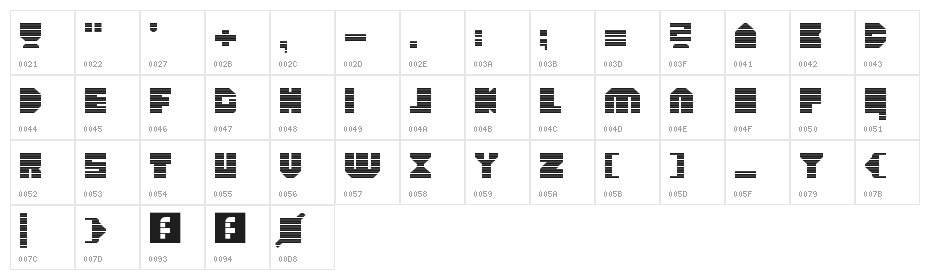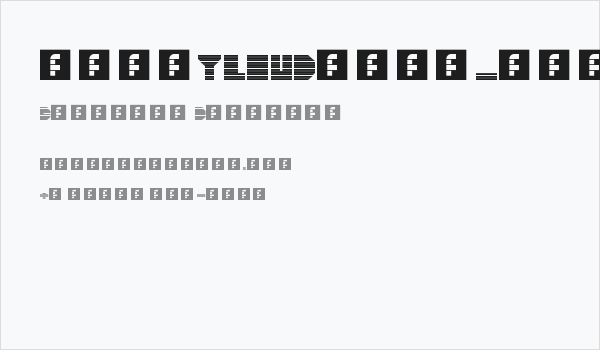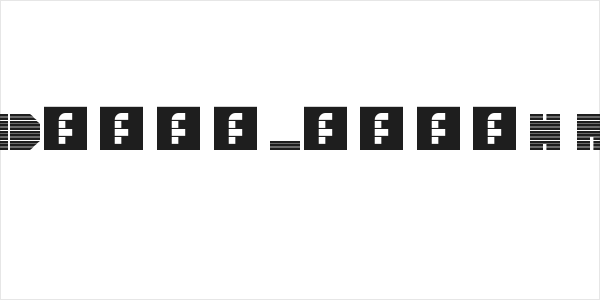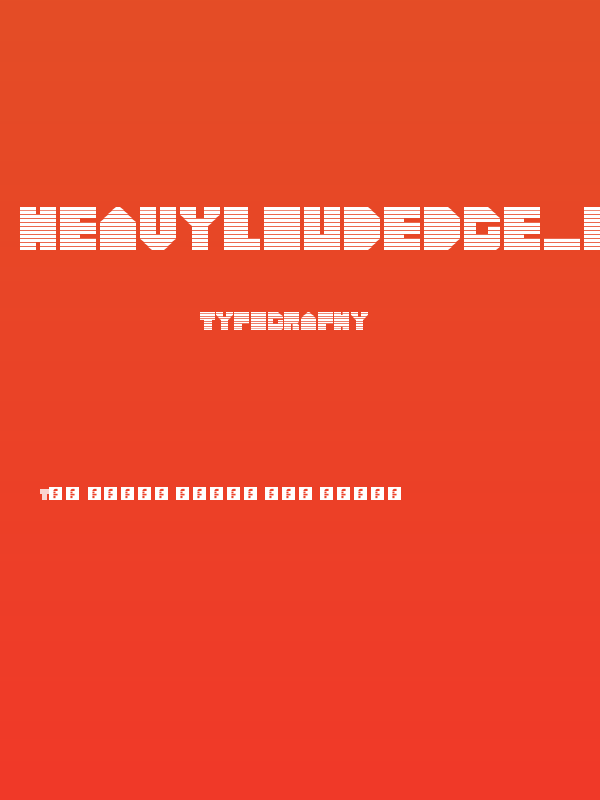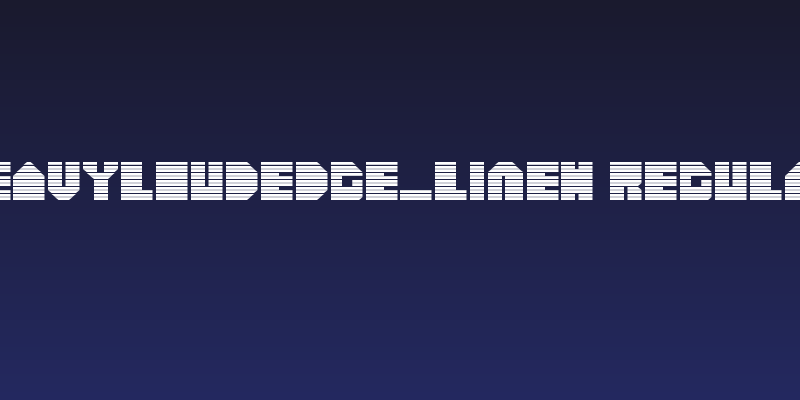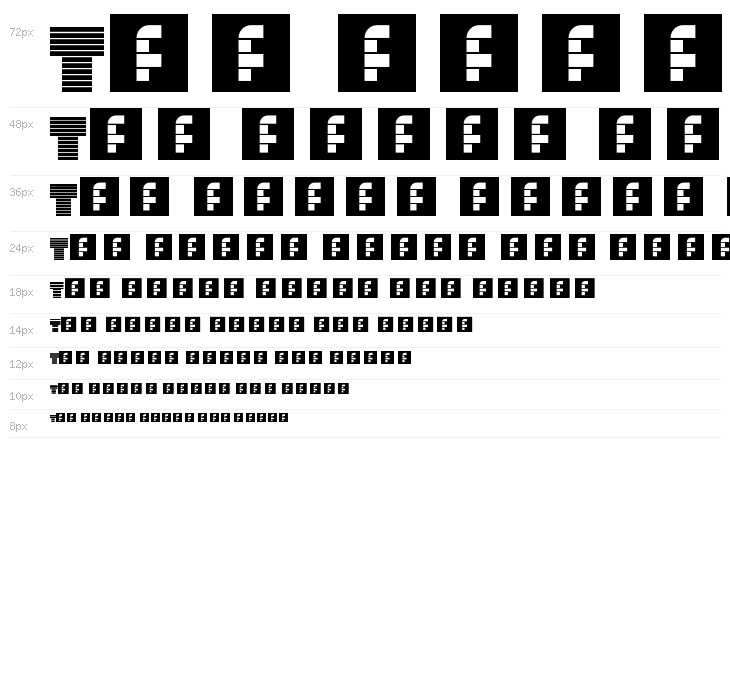
heavyLOUDedge_lineH Regular Font
heavyLOUDedge_lineH Regular Description
This font features a bold, geometric design with a distinct striped pattern running horizontally across each character. The uppercase letters are constructed with sharp angles and a blocky appearance, giving them a modern and industrial feel. The lowercase letters maintain the same striped pattern, ensuring consistency throughout the typeface. The numerals and special characters follow the same design principles, making them easily recognizable and cohesive with the rest of the font. This font's unique style makes it stand out, ideal for projects that require a strong visual impact.